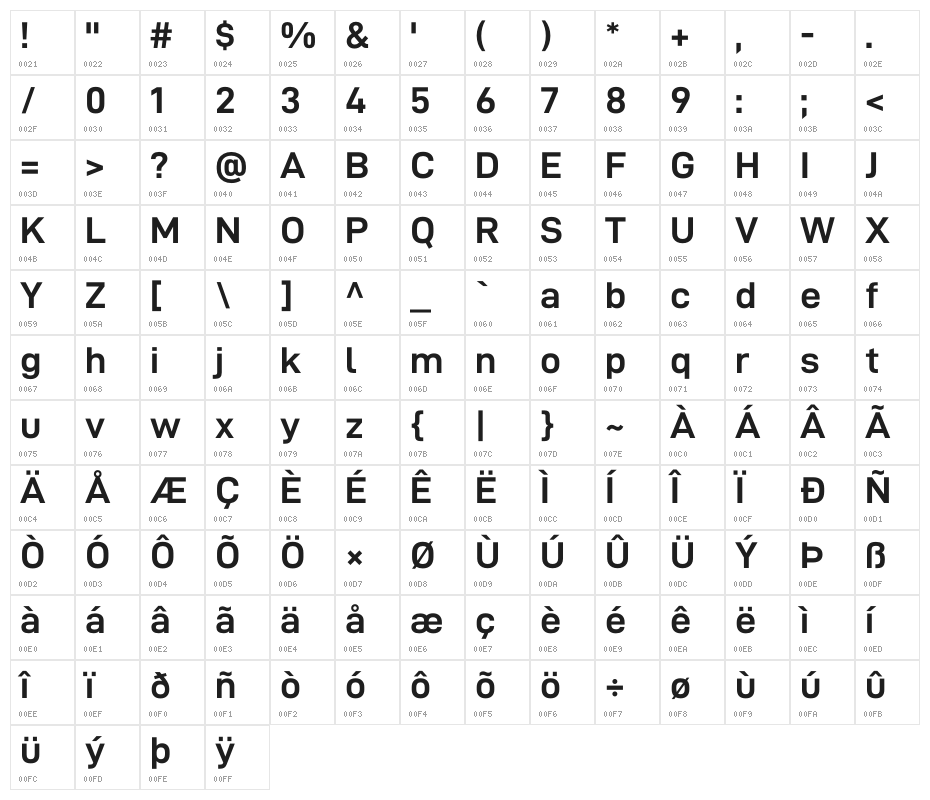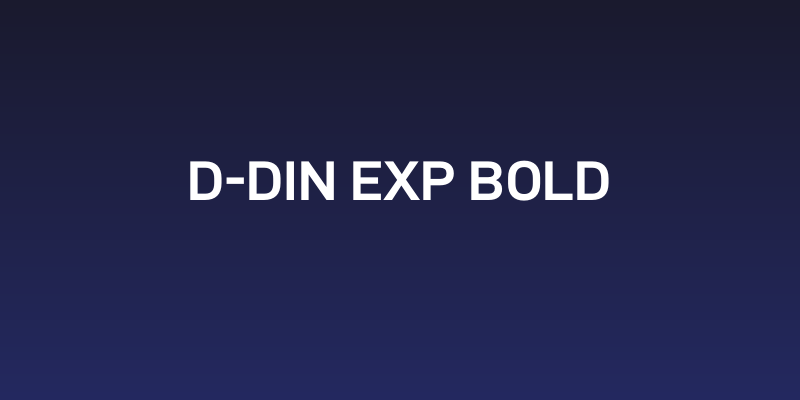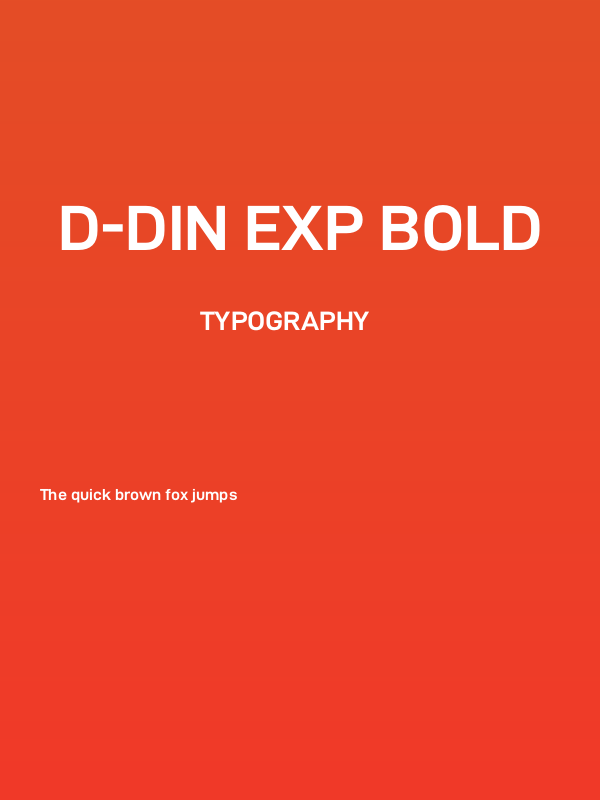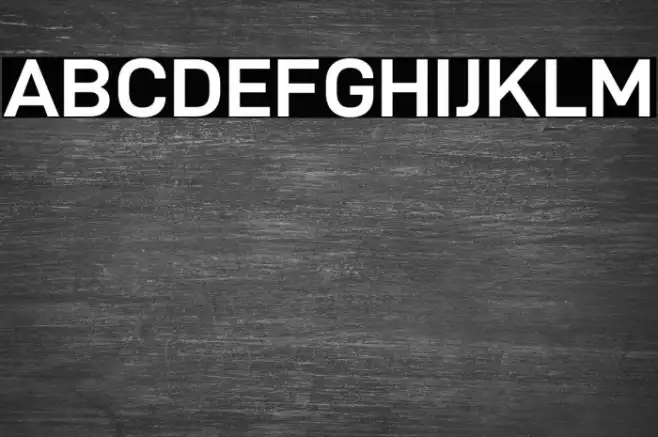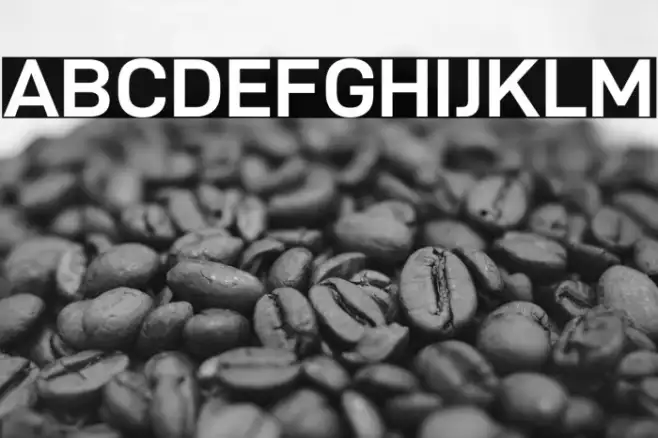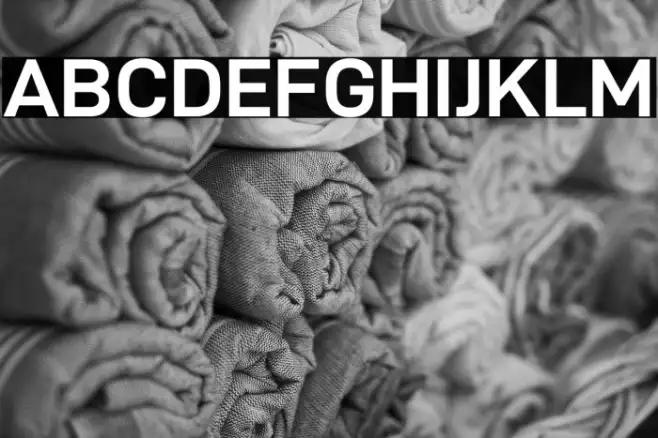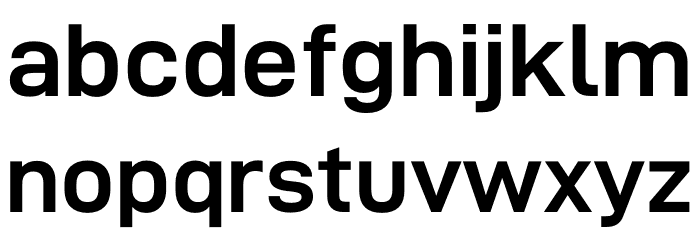
D-DIN Exp Bold Font
D-DIN Exp Bold Description
This font exhibits a clean and modern sans-serif style with bold, uniform strokes that convey a sense of strength and clarity. The characters are designed with a geometric precision, featuring straight lines and smooth curves that enhance readability. The uppercase and lowercase letters maintain a consistent height and width, providing a harmonious appearance. The numerals are clear and distinct, making them suitable for various applications. Special characters are well-defined, ensuring versatility in design projects.
| Width | Expanded |
| Use Case | Headlines, Logos, Signage |
| Proposed Projects | Ideal for branding, signage, headlines, and digital interfaces where clarity and impact are essential. |